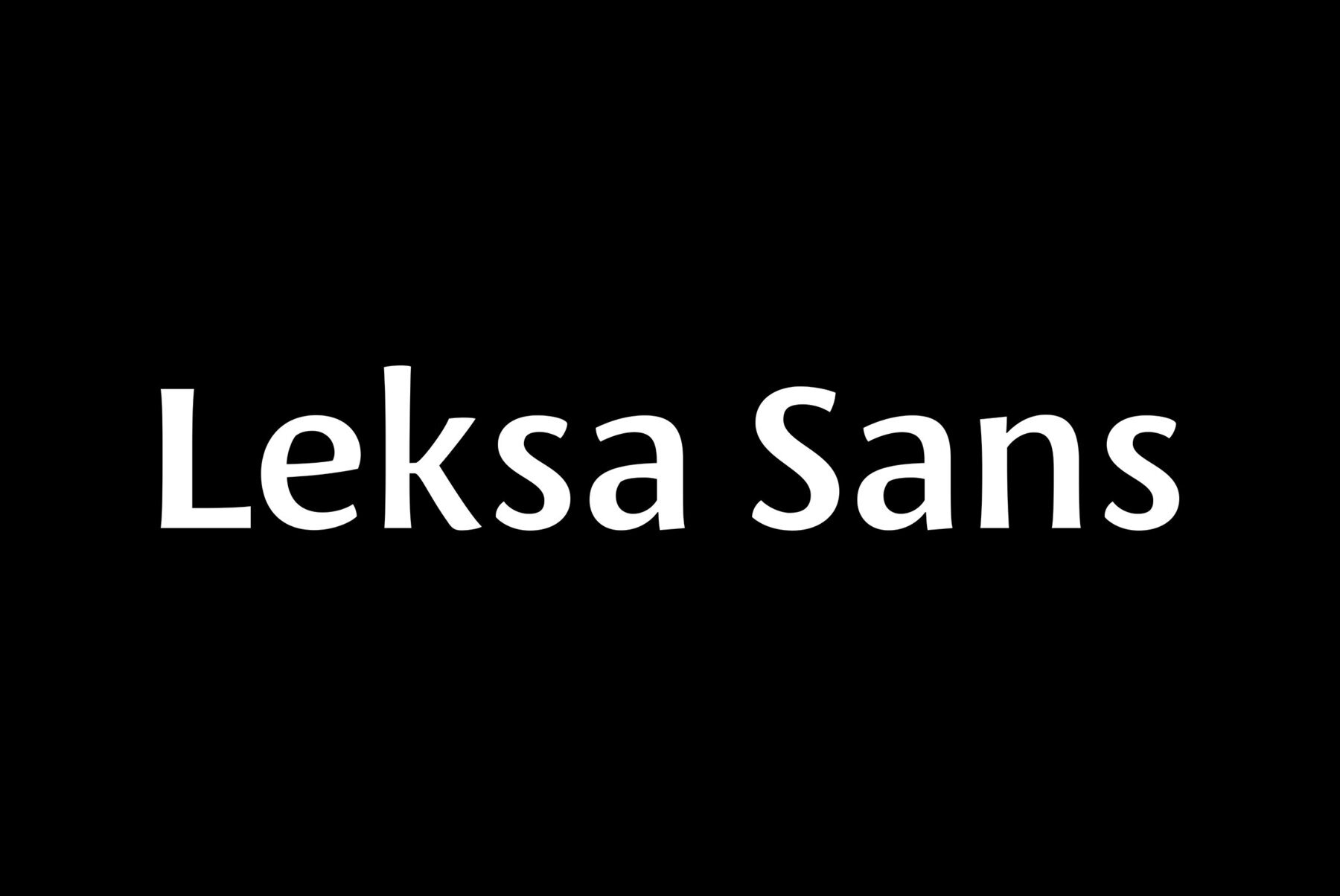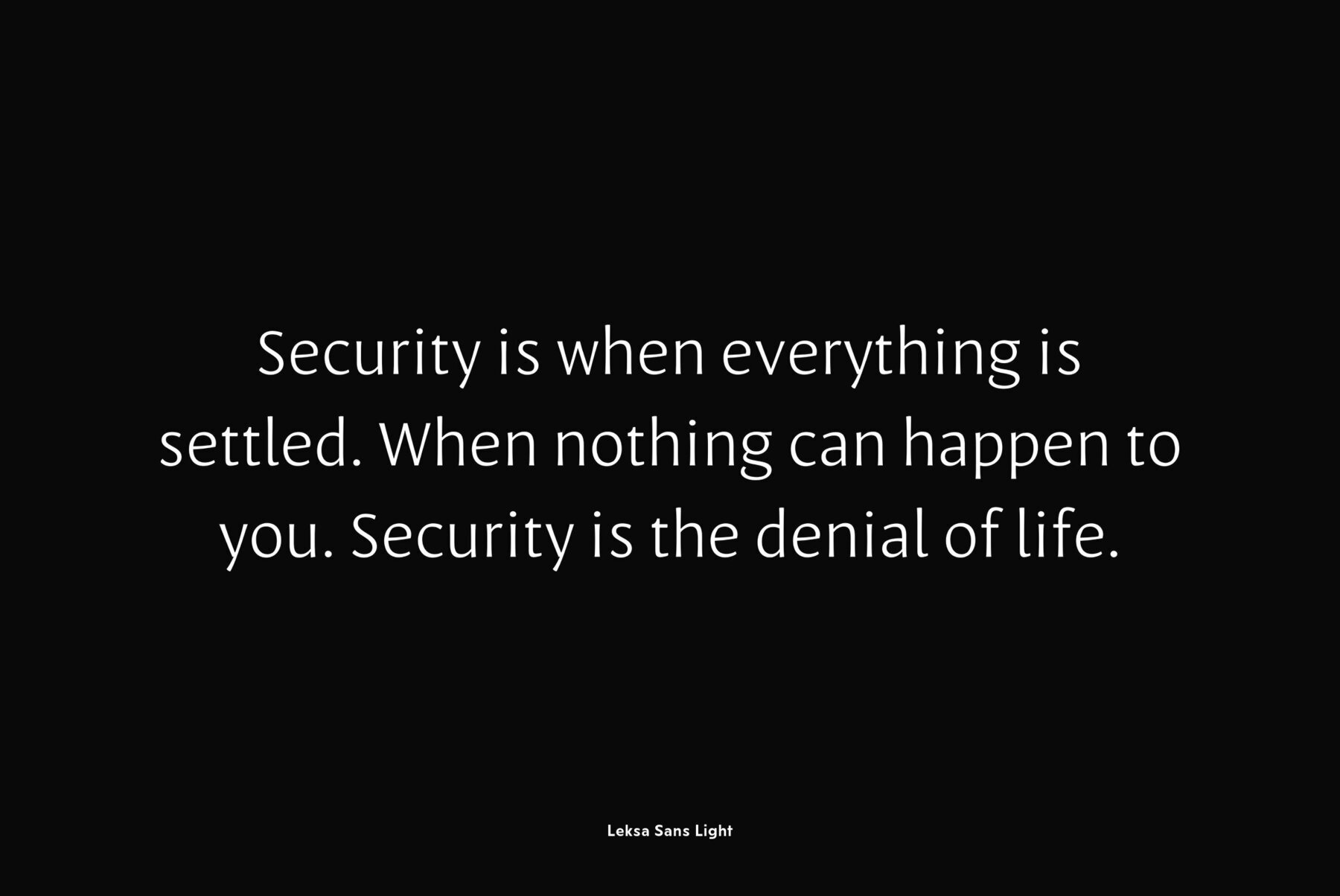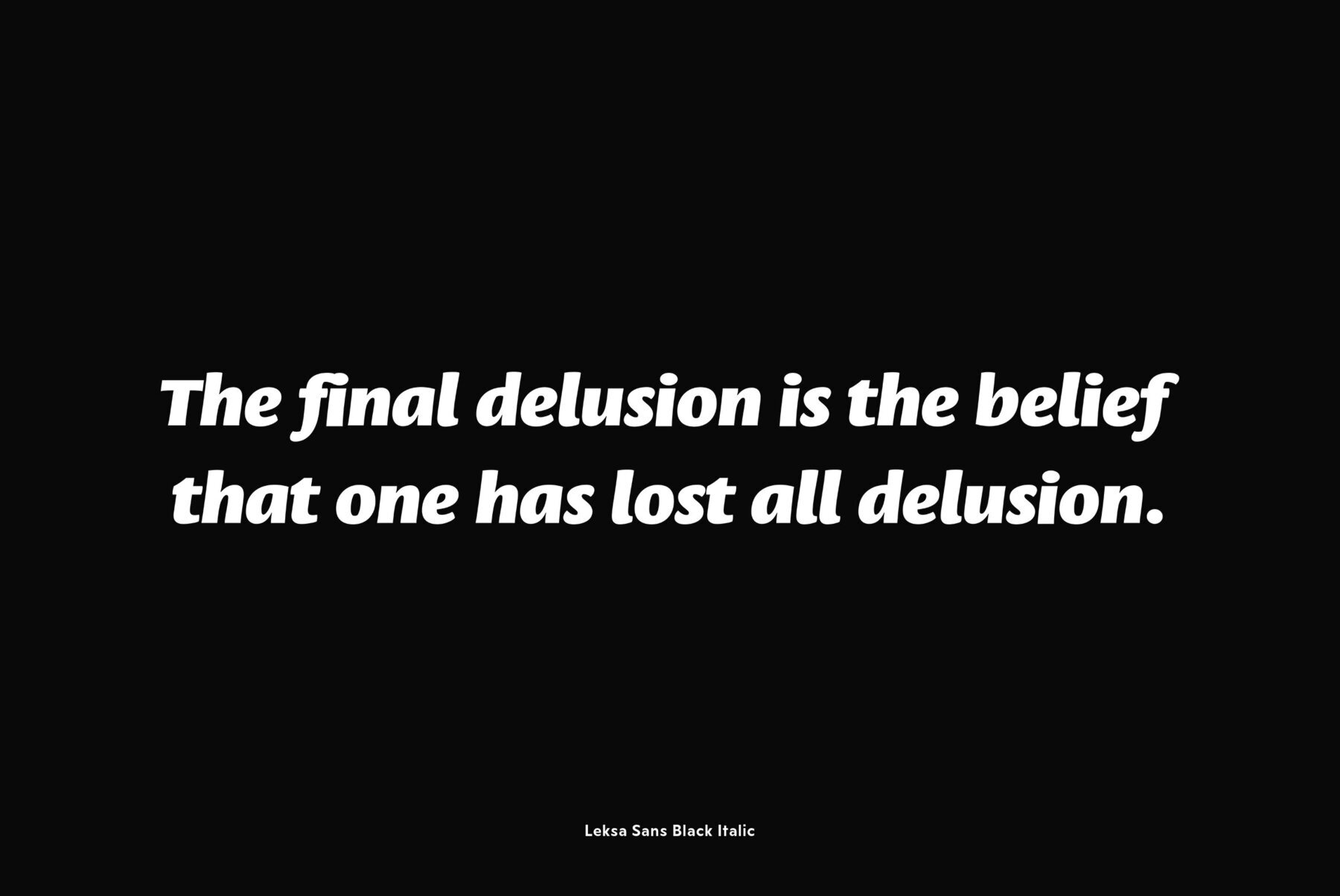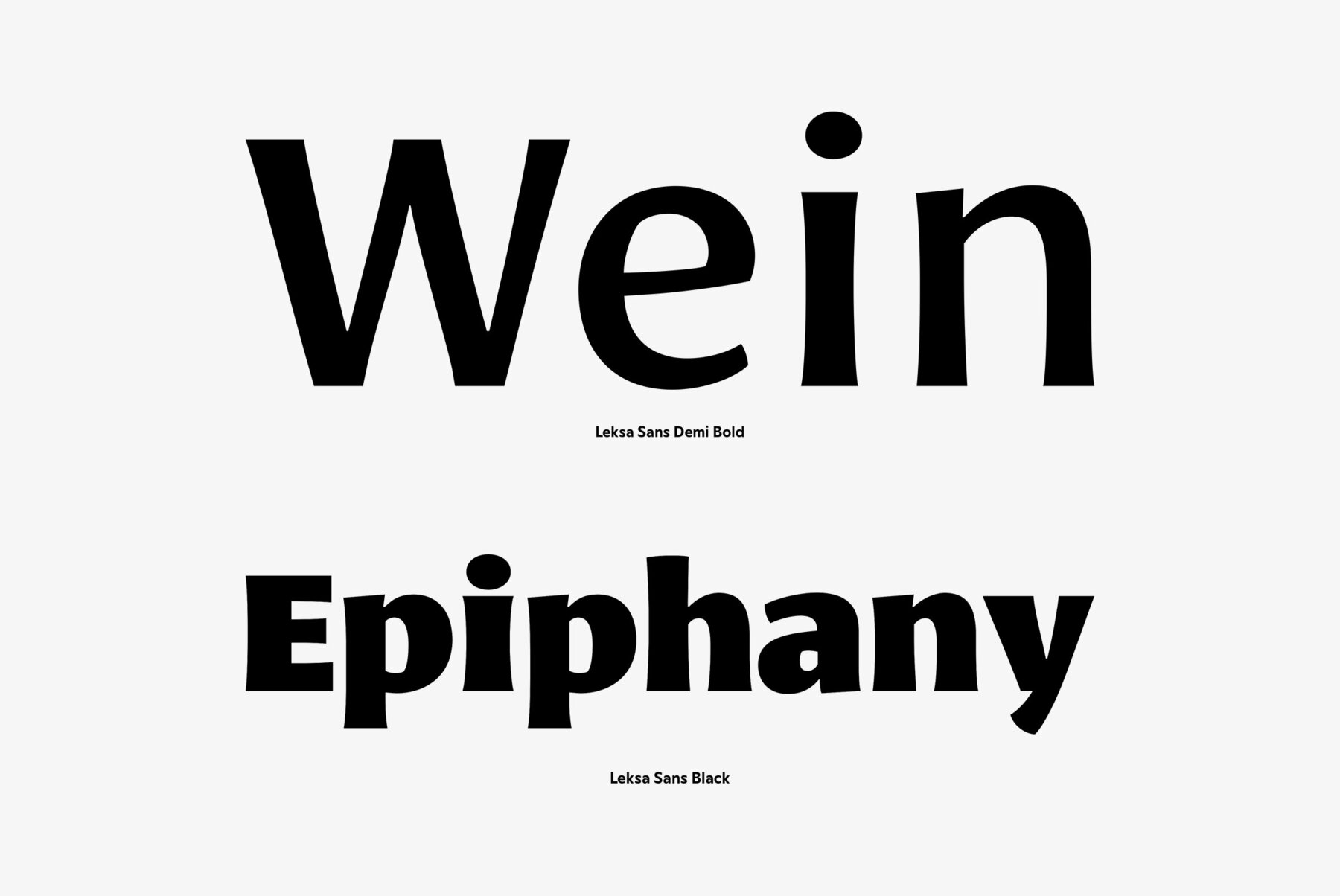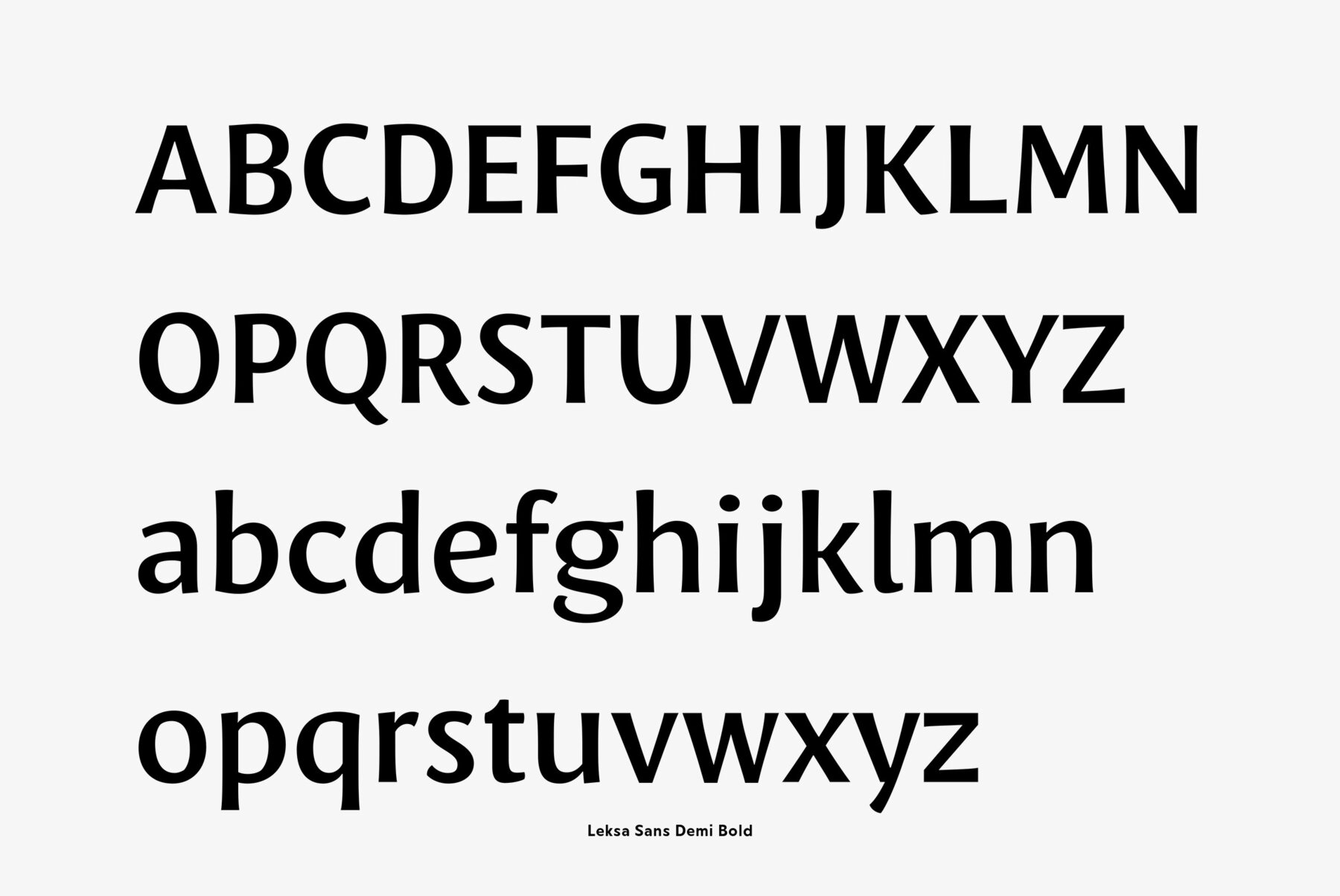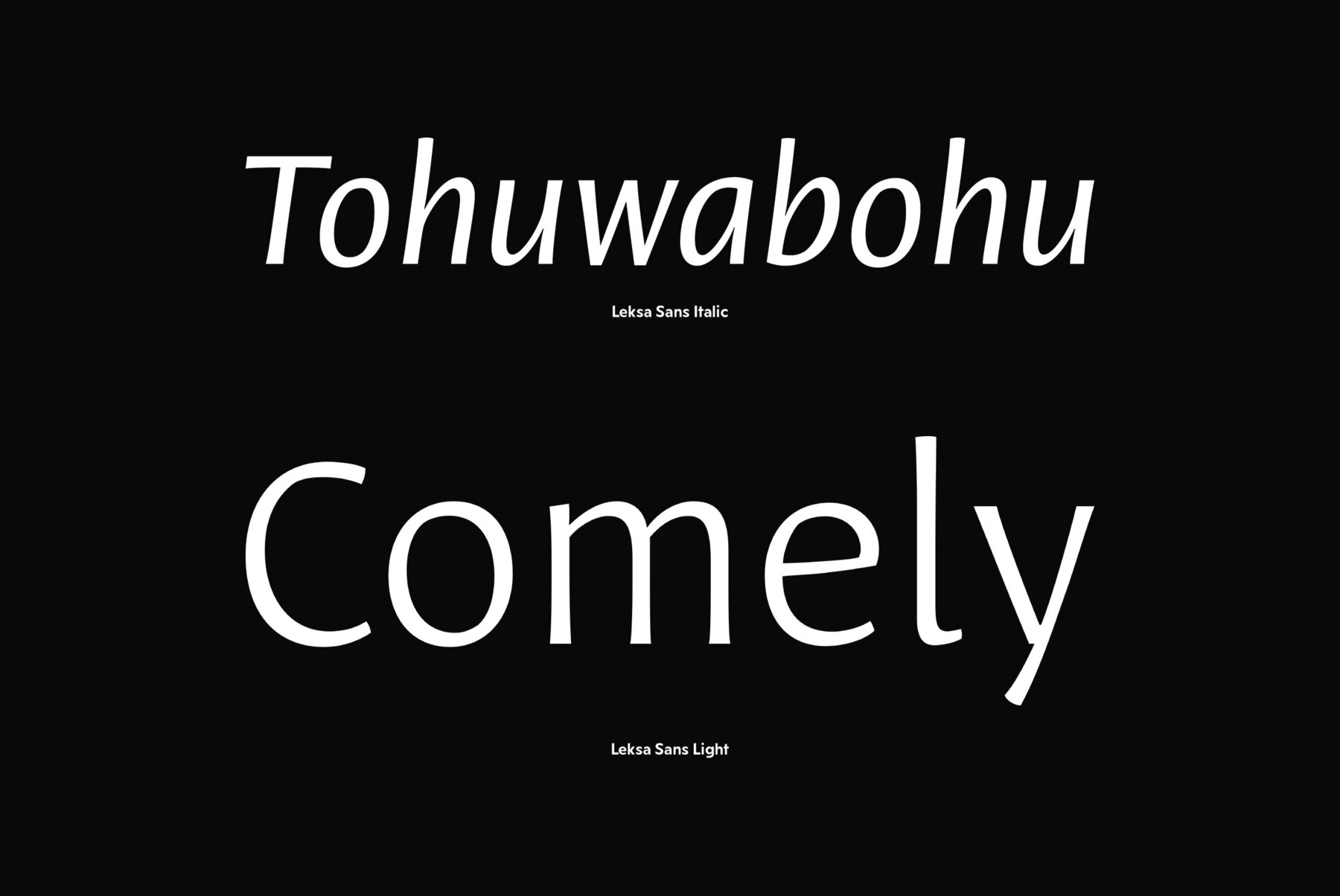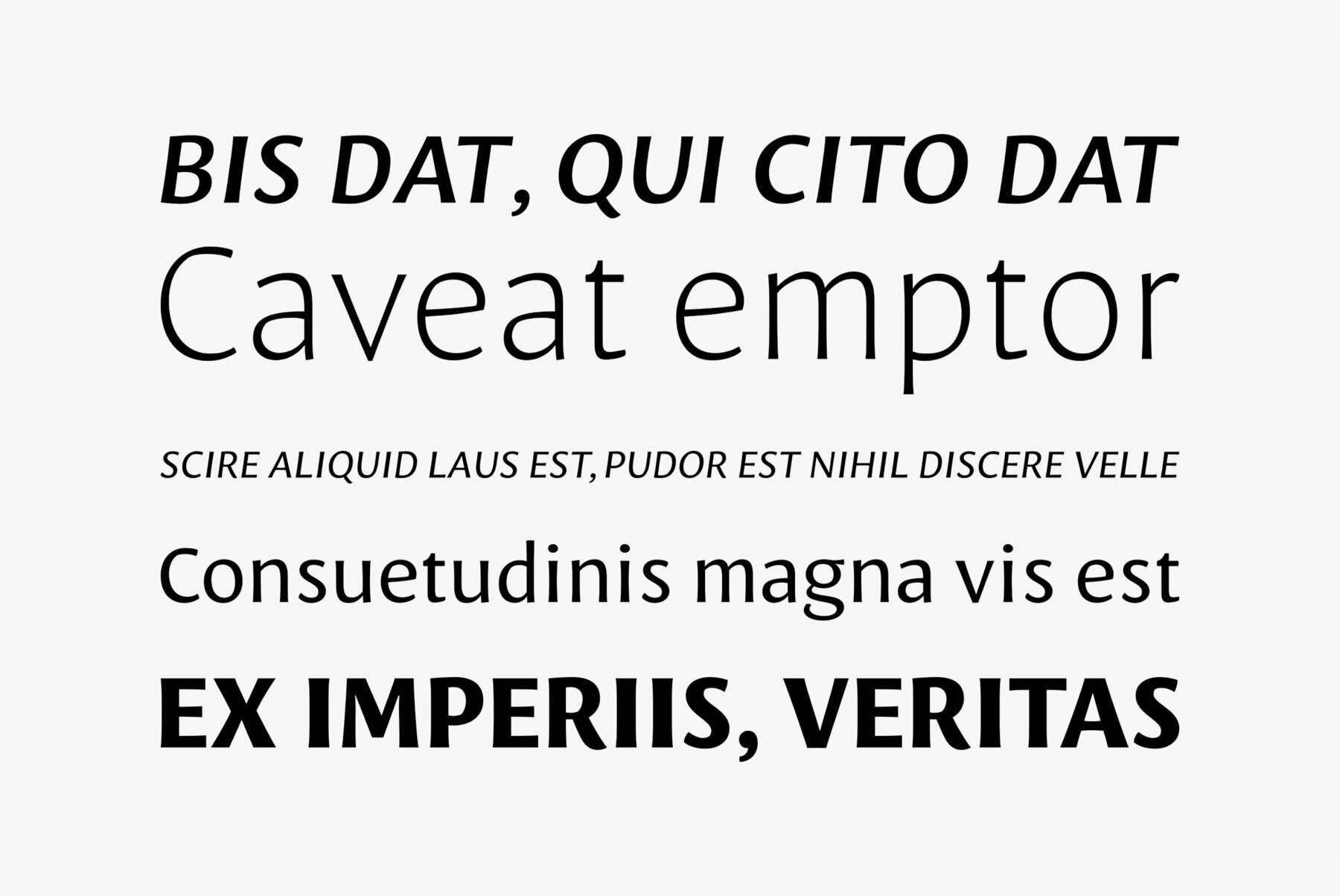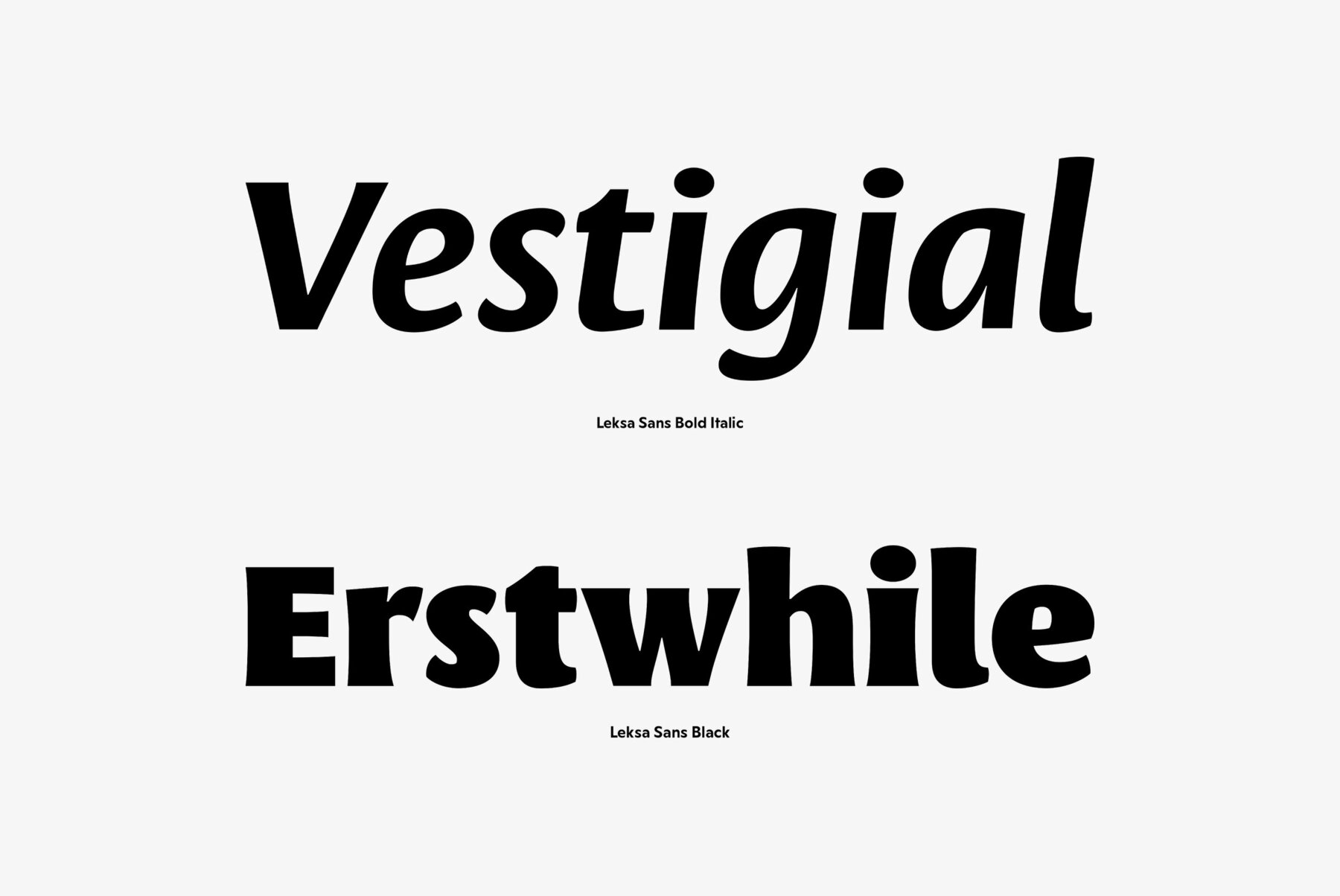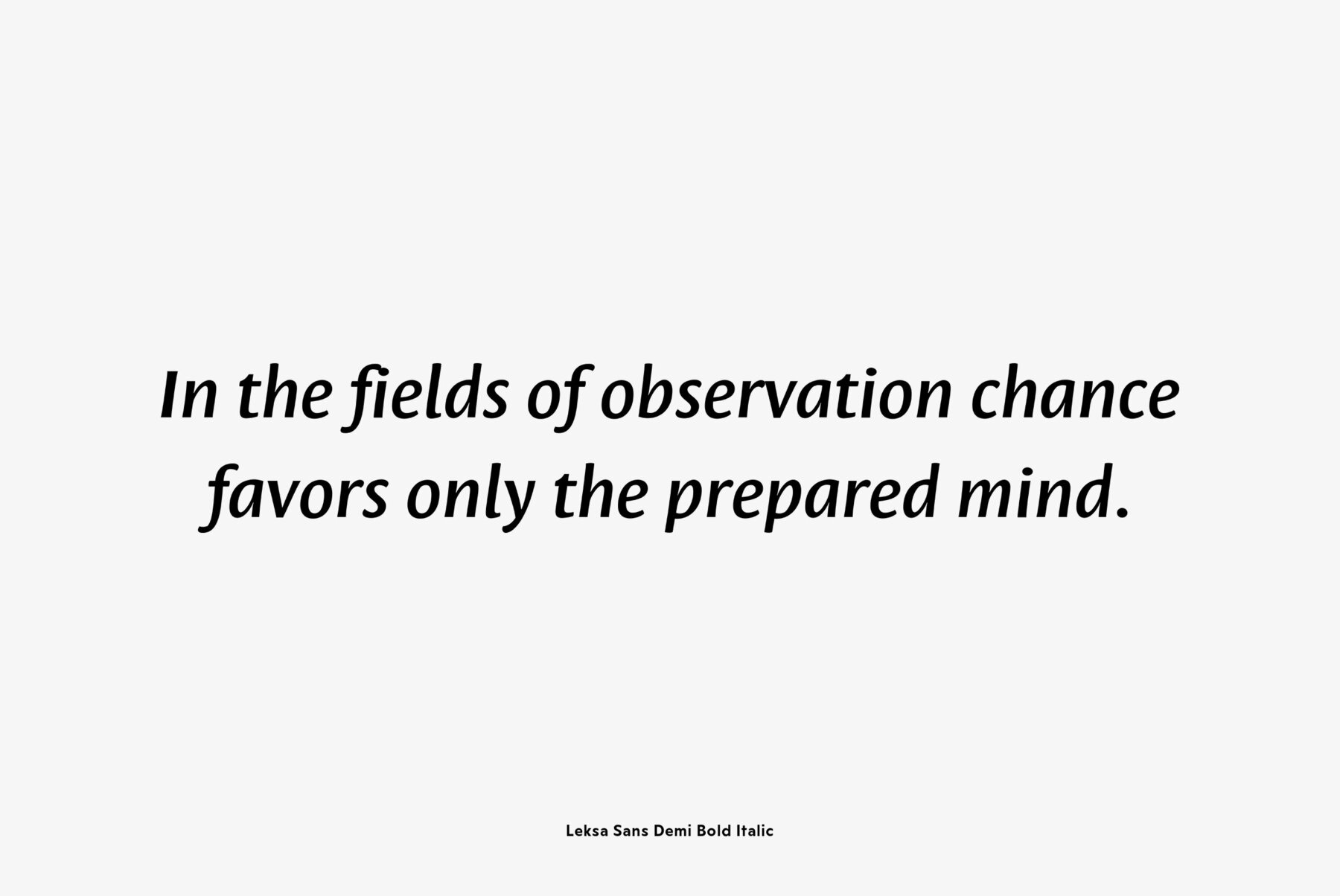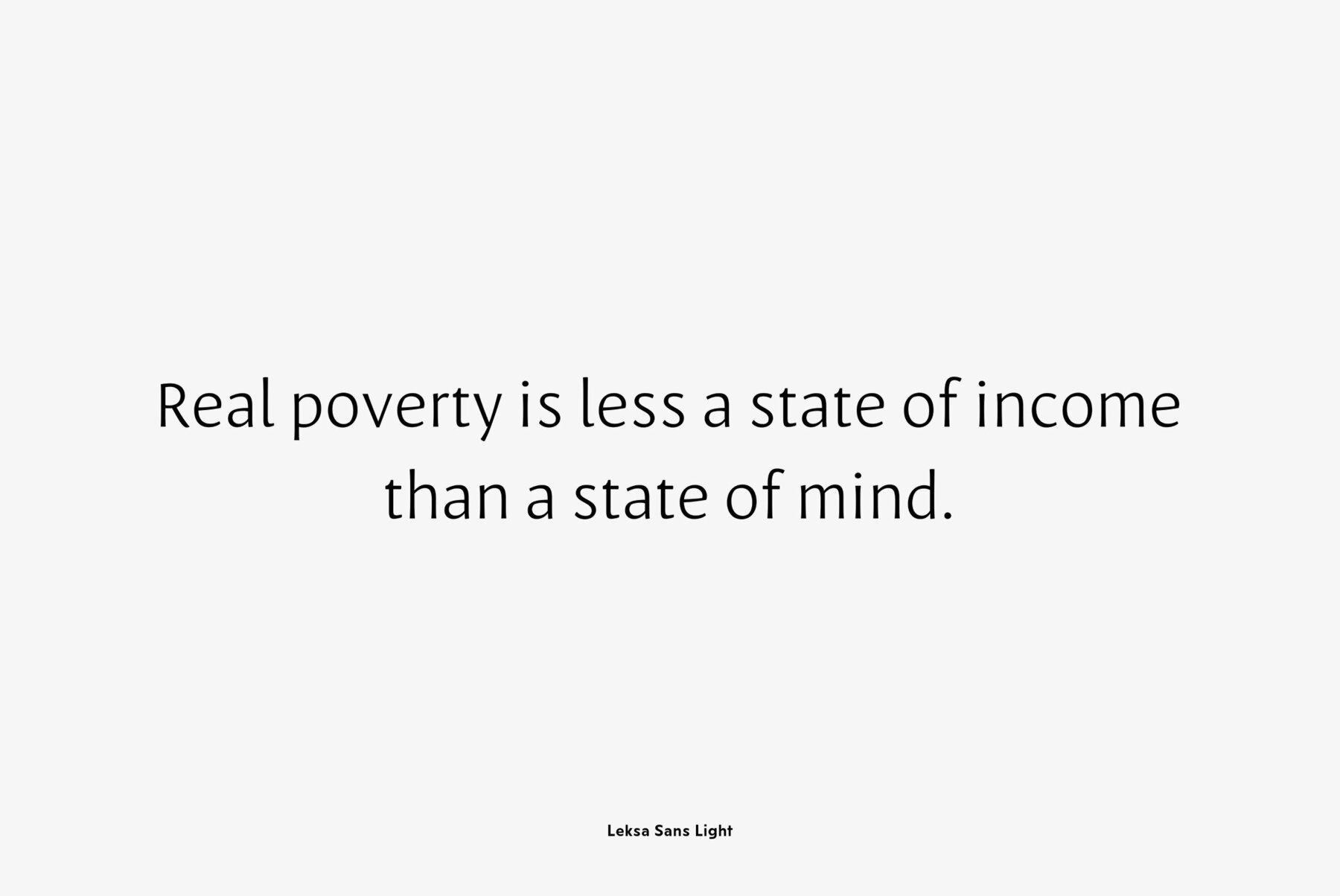
Leksa Sans
Leksa Sans is a humanist sans-serif face with some contrast. The family consists of 14 faces (upright & true italic in seven weights from Extra Light to Black). Designed as a sans-serif companion for Leksa, Leksa Sans works perfectly either with it or alone. It is suitable both for text setting and for short inscriptions. One of the main features of the typeface is its professionally-designed Cyrillic which (together with serif companion Leksa) was awarded for excellence in type design at Modern Cyrillic competition in Superfamilies category. The type family was designed and released by Alexandra Korolkova in 2009. In 2011 the fonts were corrected, technically processed and rebuilt in ParaType.